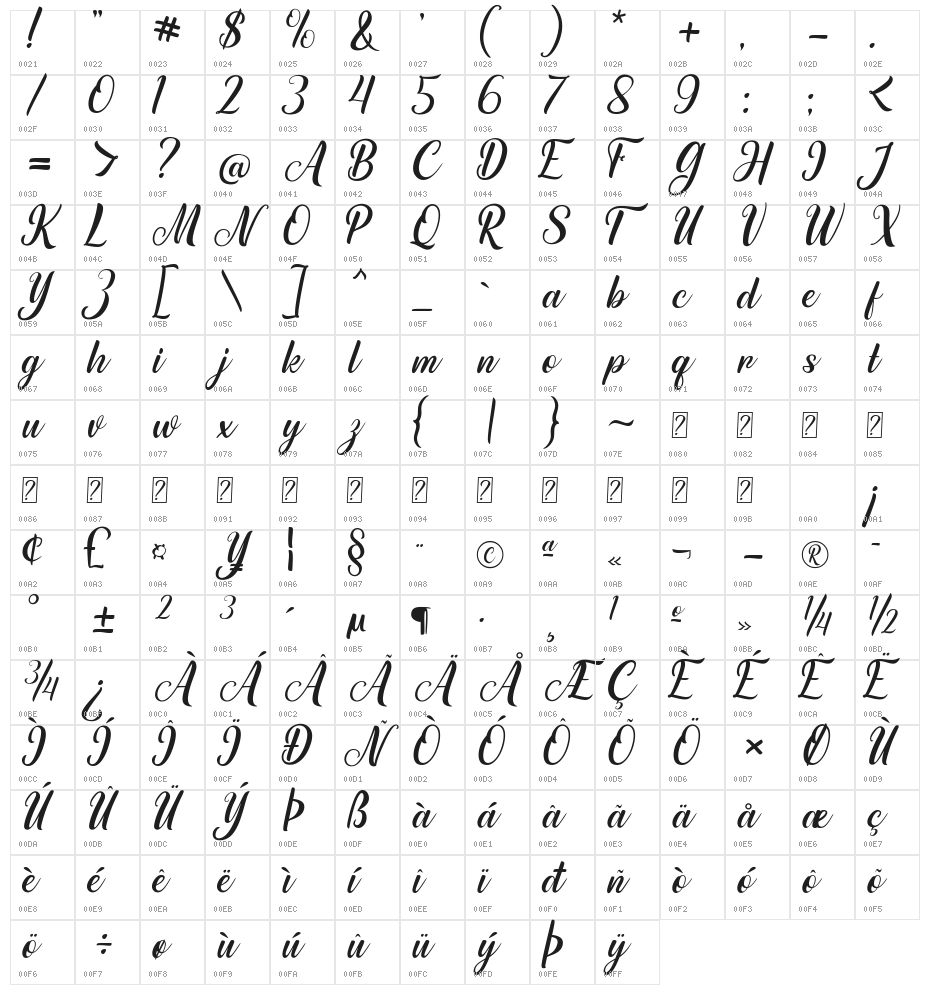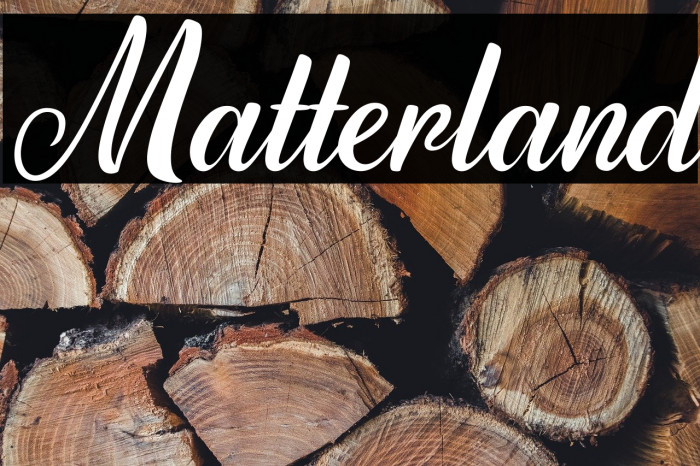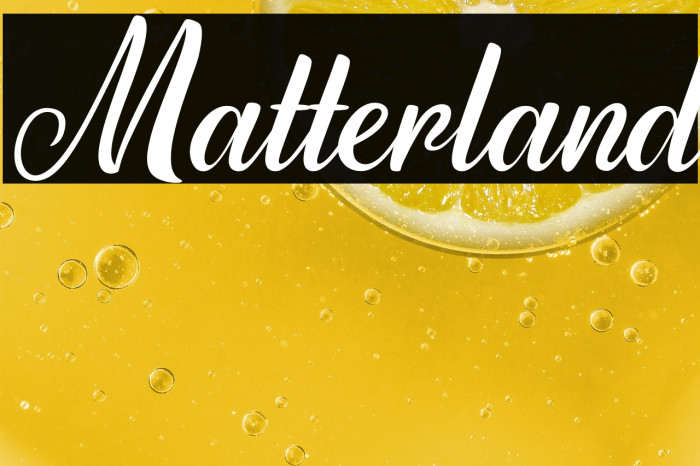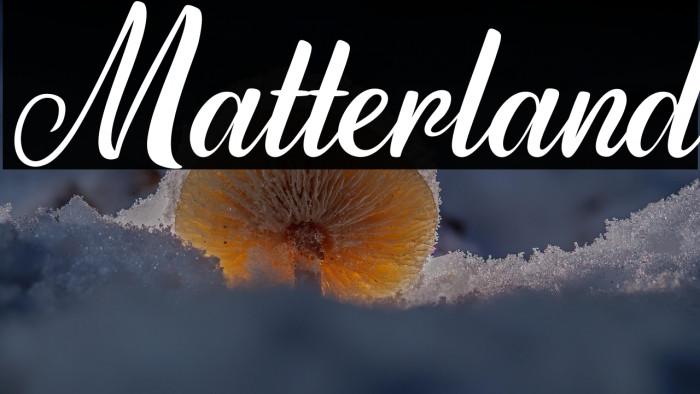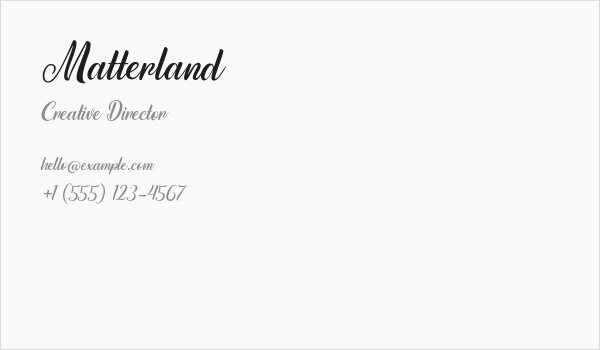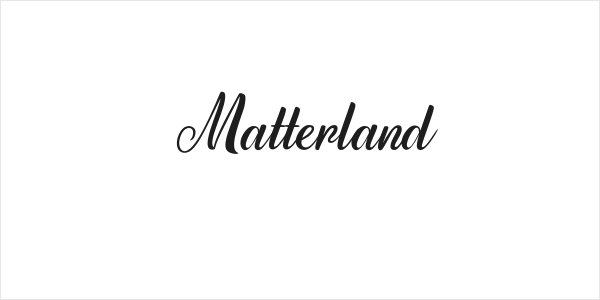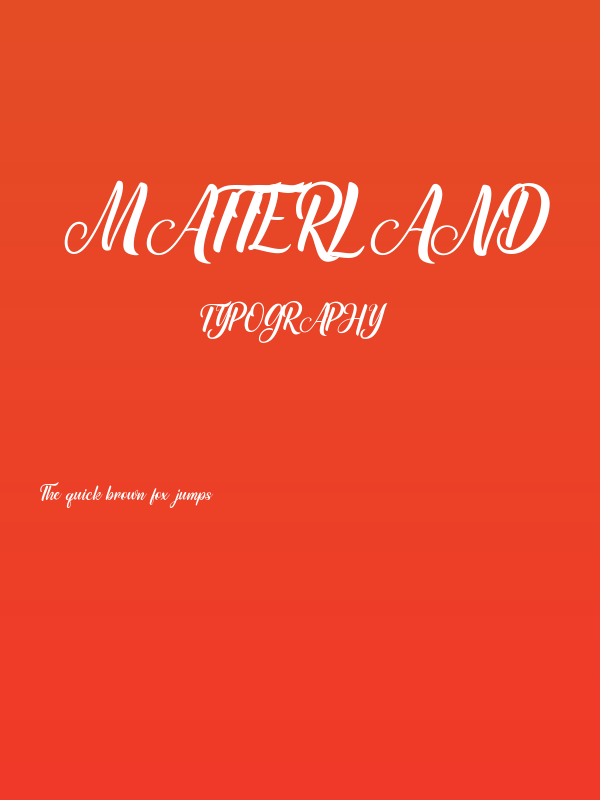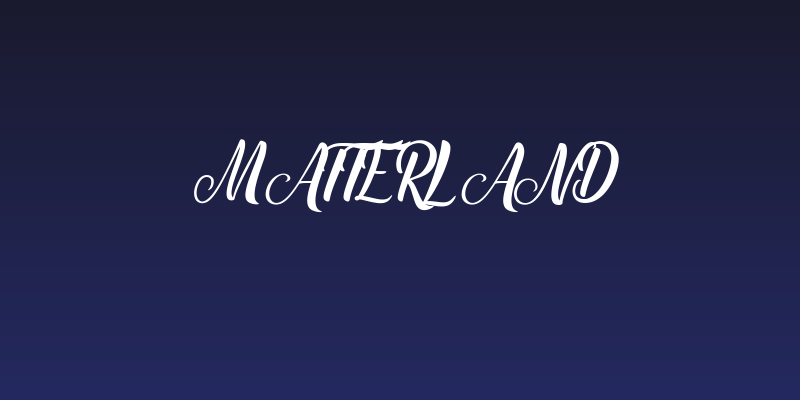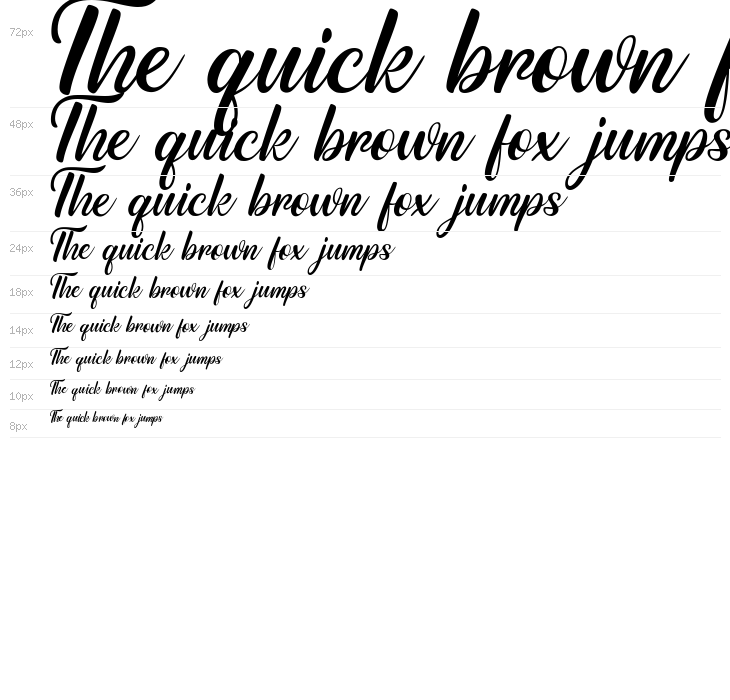
Matterland Font
Matterland Description
This elegant script font features flowing, interconnected characters that exude a sense of sophistication and grace. The uppercase letters are bold and sweeping, with dramatic flourishes that add a touch of flair. The lowercase letters maintain a consistent style, with smooth curves and a slight slant that enhances readability. Numbers are equally stylish, with a uniform height and width that ensure balance. Special characters are thoughtfully designed to complement the overall aesthetic, making this font versatile for various applications. Its high contrast in stroke thickness adds to its visual appeal, making it suitable for formal and decorative uses.
| Overall Style | Elegant, Decorative |
| Use Case | Headlines, Invitations, Branding |
| Proposed Projects | Ideal for wedding invitations, elegant branding, luxury product packaging, and decorative headings. |